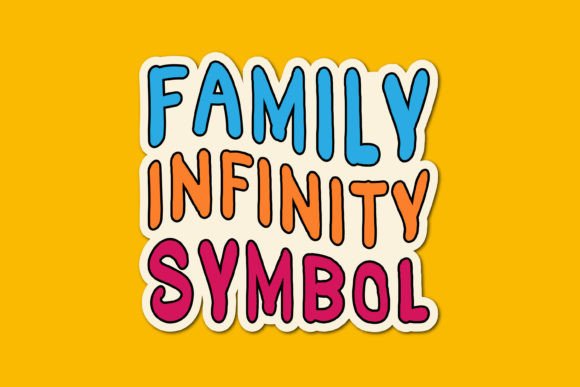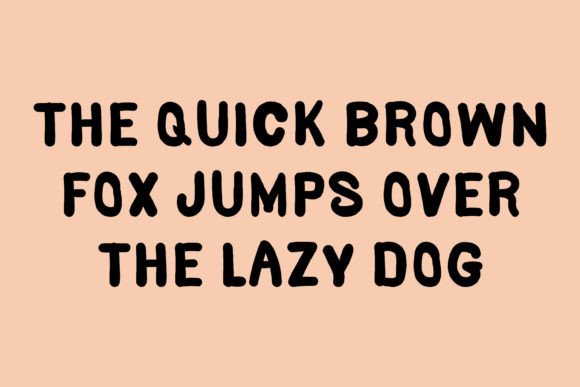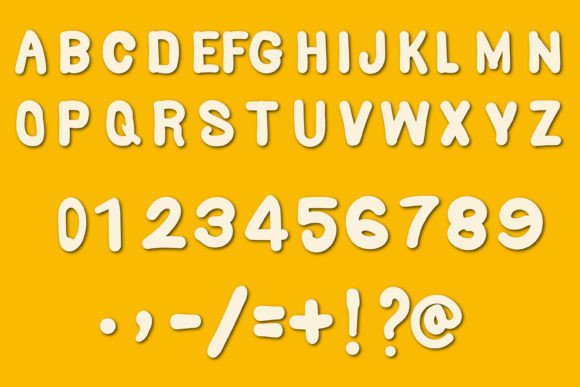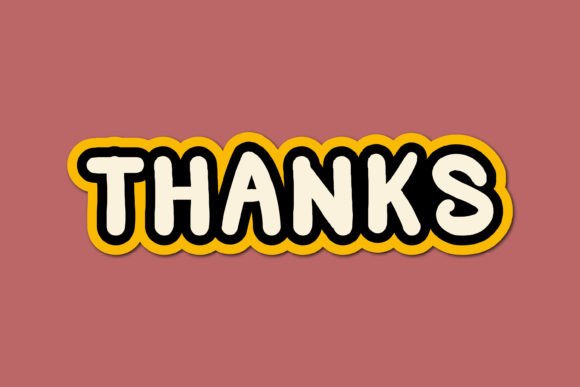
Introduction to Gulu Font
Imagine you’re brainstorming ideas for a new branding campaign, and suddenly, a burst of creativity hits you. You envision a logo that’s playful, eye-catching, and radiates joy. For designers like you, finding that perfect design resource can be a game-changer. Enter the Gulu Font – a vibrant and whimsical color font that’s sure to elevate your creative projects.
With its unique charm, the Gulu Font is an absolute fit for a wide range of design endeavors, from branding initiatives and packaging designs to riveting logotypes and gripping headlines. Its high-quality design makes it an excellent addition to any design project, and the best part? It’s free to download and use on a transparent background, making it an incredibly valuable resource for designers.
Key Features of Gulu Font
- High-quality, professional font suitable for various creative projects, including graphic design, digital art, and publishing.
- Designed to be versatile, the Gulu Font is perfect for use in logos, headings, body text, and other design elements, adding a touch of elegance and sophistication.
- Includes a range of characters, including uppercase and lowercase letters, numbers, and special characters, making it a comprehensive design resource.
- Supports various languages, including English, Spanish, French, and many others, making it a valuable resource for designers working on international projects.
Honest Review: Gulu Font
As a designer, I’m always on the lookout for high-quality design resources that can elevate my creative projects. Recently, I came across the Gulu Font, and I was eager to see if it lived up to my expectations.
- ✨ The design is modern and sleek, making it perfect for a variety of creative projects.
- ⚠️ The font may not be suitable for projects that require a lot of customization, as it can be difficult to manipulate.
- ⚠️ Some users may find the font’s modern style too trendy, making it difficult to incorporate into more traditional design projects.
Overall, I was impressed with the Gulu Font’s high quality and versatility. While it may have some limitations, I believe it’s an excellent addition to any designer’s toolkit. With a little creativity, the Gulu Font can help take your design projects to the next level.
Gulu Font
Tips for Getting the Most Out of the Gulu Font
For optimal results, use the Gulu Font on a transparent background to create a high-quality design resource. Experiment with different font sizes and colors to find the perfect combination for your creative project.